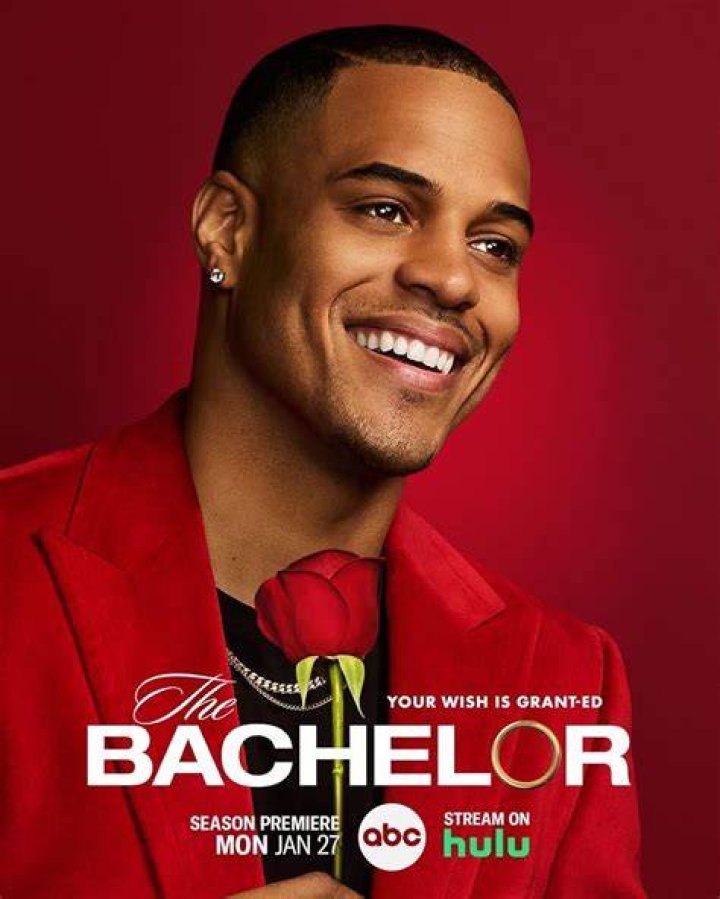
What font is used in the bachelor logo?
Rachel Davis What font is used in the bachelor logo?
The logo of the reality show features two fonts: the sans serif font is Neue Helvetica Bold Extended and the script one (The) is Sloop Script, designed by Richard Lipton and released through Font Bureau in 1994.
1. Free Google Font Logo Catull BQ Download 2. Free Facebook Logo Font Klavika Bold Download 3. Free PS3 Logo Font Download 4. Free Good Year Logo Font Download 5. Free IMDb Logo Font Download 6. Free Hollywood Logo Font download 7. Free IBM Logo Font download 8. Free Linkedin Logo Font Download 9. Free Nintendo Logo font Download 10.
Which is the most famous Font in the world?
The font is a common one today but its popularity can well be attributed to the CISCO logo. The most famous logo of our generation, Facebook logo is created with a not so popular font called Klavika Bold. This is a modern font and has been given the right chiseling to give a flowing look to the logo.
What kind of font is the Amazon logo?
The current Amazon logo has been around since 2000. The font is close to Officina Sans Bold designed by typography legend Erik Spiekermann. Turner Duckworth designer Anthony Biles redesigned this logo. He customised the lettering slightly and added the orange smile-like arrow going from A to Z, a playful touch for the “everything store”.
What kind of font is the Disney logo?
The story goes that the font used for the Disney logo is based on Walt Disney’s handwriting. But copies of his letters show it’s quite different – a more stylised version, maybe, at a push – which apparently left fans disappointed when they got his autograph.
What kind of font should I use for a logo?
There many different kinds of typefaces that we could use in our logo design process, but all of them basically fall into one of the three categories: serifs, sans serifs and script fonts. So let’s talk about serif fonts first.
Which is the most popular sans serif font?
Helvetica is perhaps the most popular sans serif font of all and many brands use some kind variation of that typeface in their logo: Jeep, Panasonic, Target, Microsoft, Caterpillar and many more. Sans Serif font—Famous logos
What kind of font is used in Rolex logo?
Those are just different types of serifs, some of them are big and loud, and other are more subtle. Famous brands like Tiffany, Gucci, Burberry, The New York Times and Rolex use serif fonts in their logos: Serif font—famous logos examples.
What kind of font does Calvin Klein use?
1. Bodoni Dating back to before the year 1800, Bodoni is a timeless serif that plays with contrast between thick and thin strokes. It has appeared throughout the centuries and still finds its way into established fashion brands, like Calvin Klein and Vogue. 2.